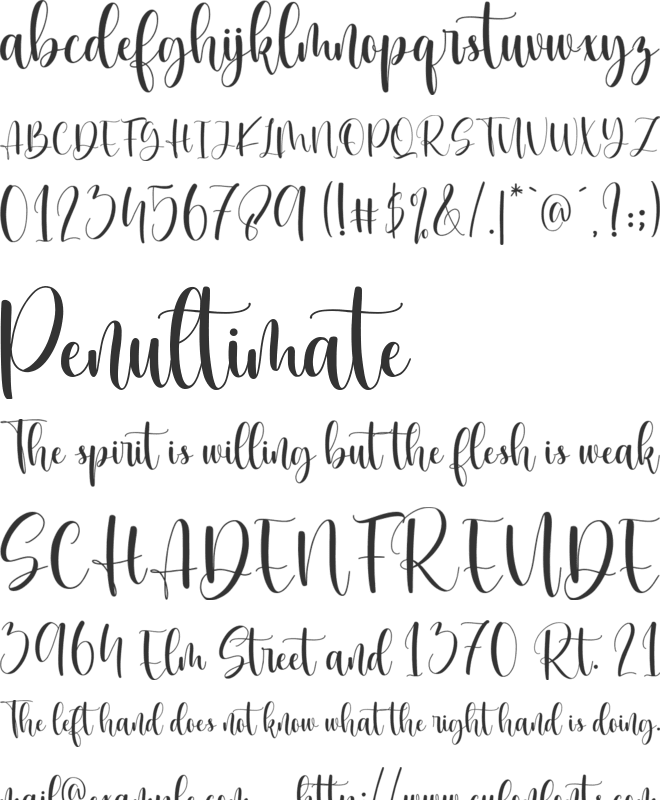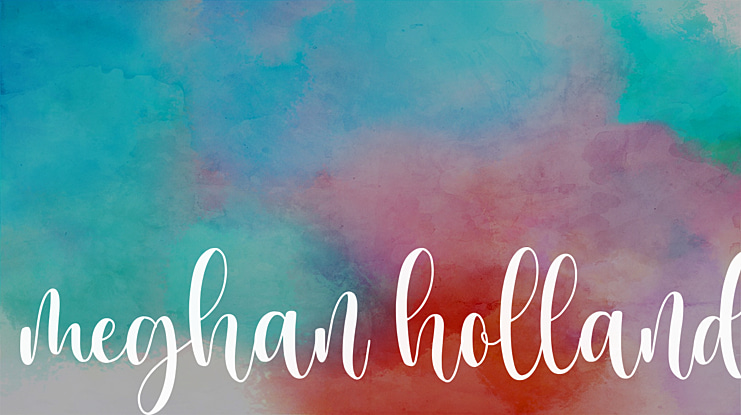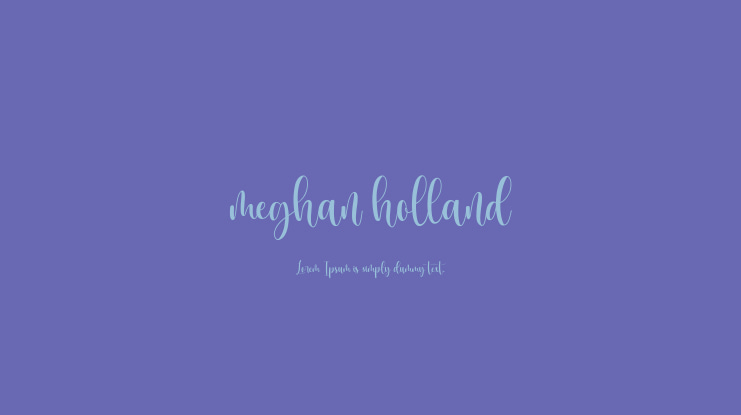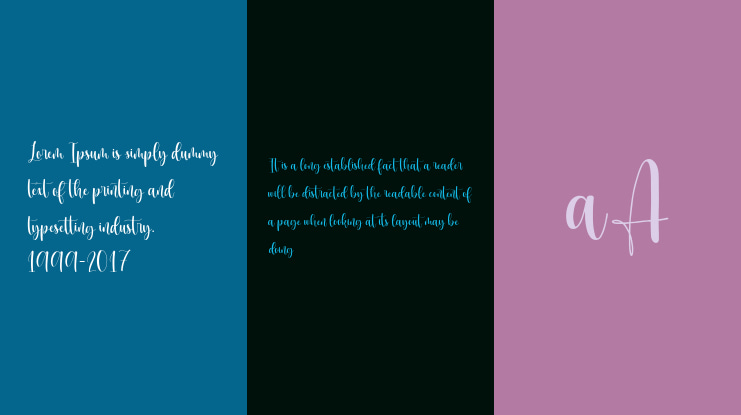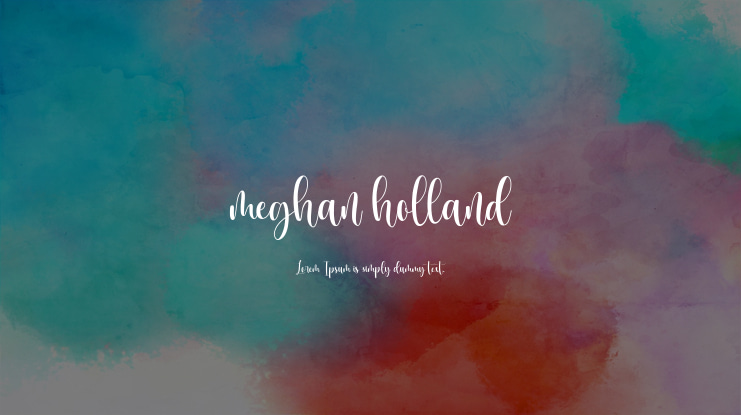
meghan holland Font
Meghan Holland is a beautiful script font with love-themed ribbon connecting swashes.
It is one of the modern calligraphy script fonts that comes with very beautiful character changes.
Meghan Holland feels incredibly elegant and flowing. It looks stunning on wedding invitations, thank you cards, quotes, greeting cards, logos, business cards and every other design which needs a handwritten touch. It features a varying baseline, smooth lines, gorgeous glyphs and stunning alternates.